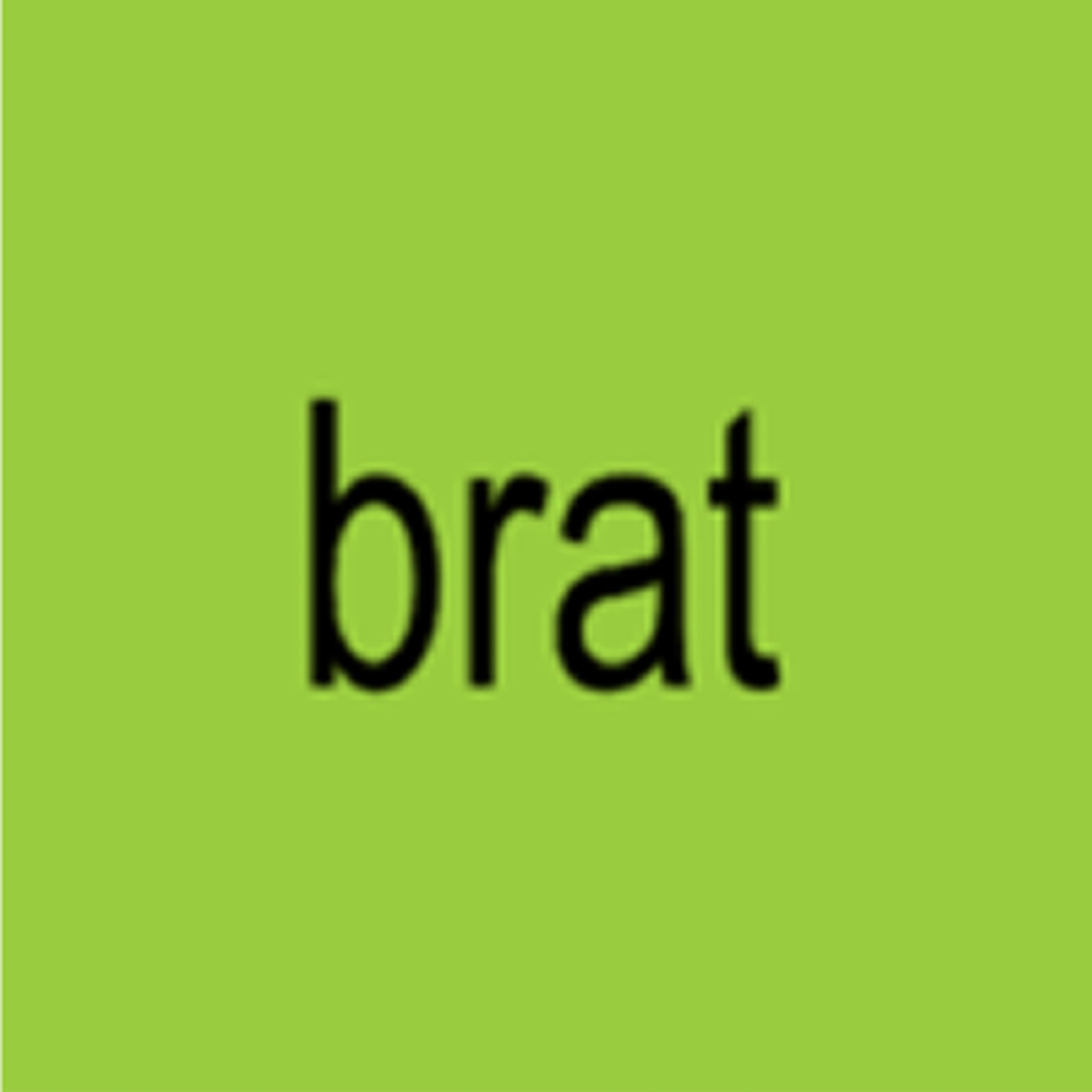
Brat font preview
About Brat
Brat is Charli XCX's sixth studio album, released in June 2024, that became a cultural moment far bigger than a record: its deliberately plain lime-green cover, with the lowercase word "brat" set in stretched, slightly blurred Arial Narrow, turned into a meme, a political shorthand, and one of the most imitated design statements of the year.
Released through Atlantic and Warner, Brat spawned a remix album, a tour, and an entire "brat summer" aesthetic that brands, campaigns, and fans copied relentlessly. The cover's refusal of custom type, just Arial Narrow on a single flat green, is what made it endlessly reproducible: anyone could make a brat-style graphic in minutes. That minimalist, condensed-sans look is what this font recreates.
What font does Brat use?
Brat uses Arial Narrow, the condensed cut of Arial (Monotype, 1982, by Robin Nicholas and Patricia Saunders), the everyday system font used on the brat album cover. A commercial Monotype release that also ships with most operating systems.
Where this style works
Condensed neo-grotesque sans-serifs like Arial Narrow fit anywhere space is tight and neutrality is the goal: packaging fine print, tabular data, forms, signage, captions, and the deliberately plain anti-design graphics the brat cover made fashionable. The tight proportions pack a lot of text into narrow columns, while the anonymous letterforms keep the focus on the message rather than the type.
Is the Brat album font free?
What fonts are similar to the Brat font?
Condensed neo-grotesque sans-serifs in the same register include Helvetica Condensed, Folio Condensed, and Trade Gothic Condensed. The closest free options are Roboto Condensed and Archivo Narrow via Google Fonts.